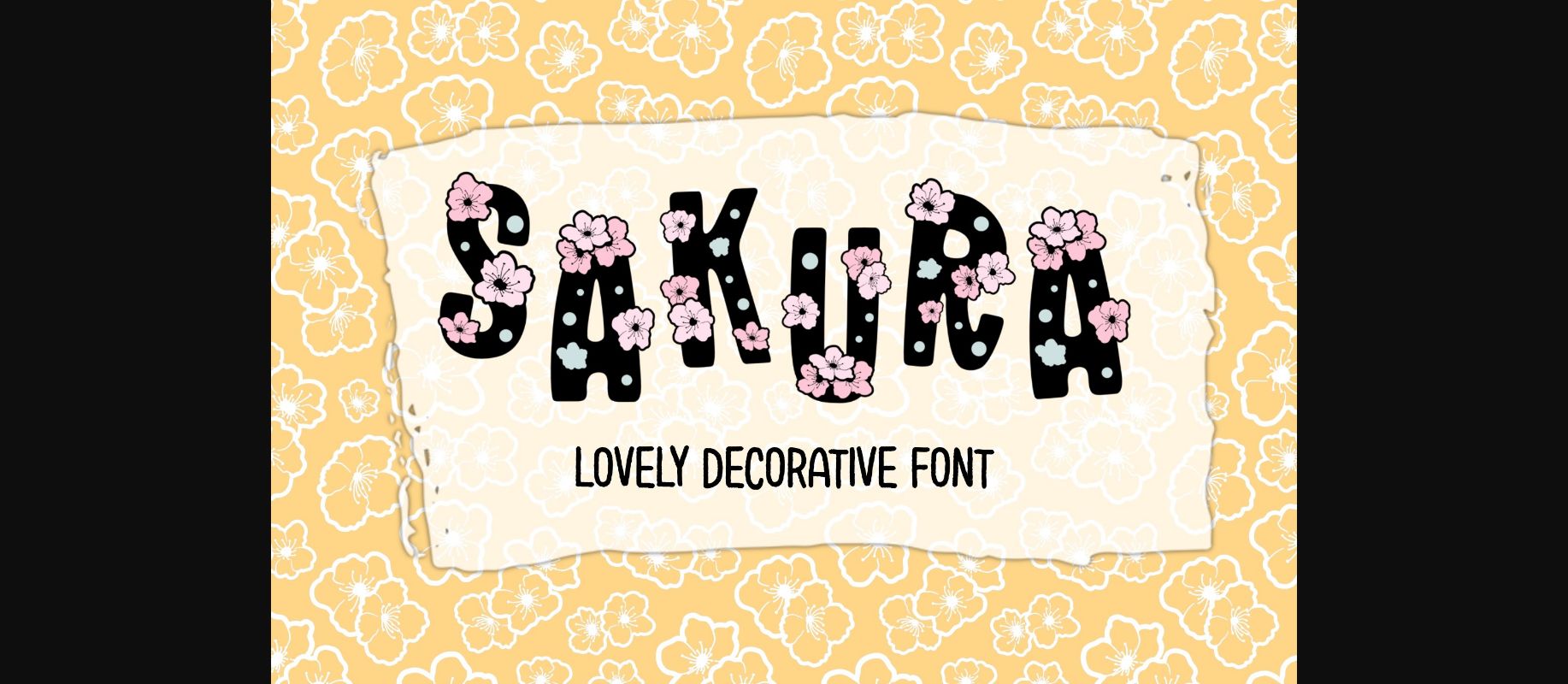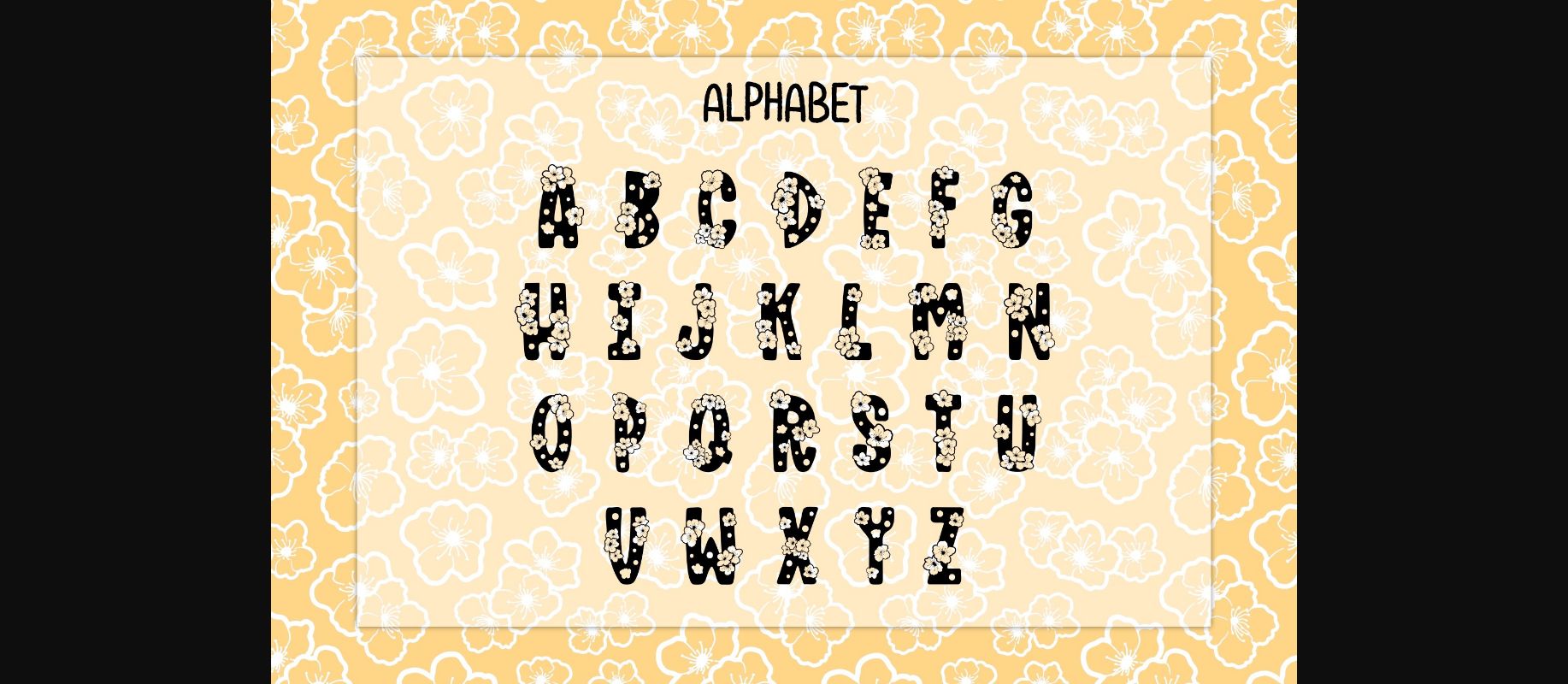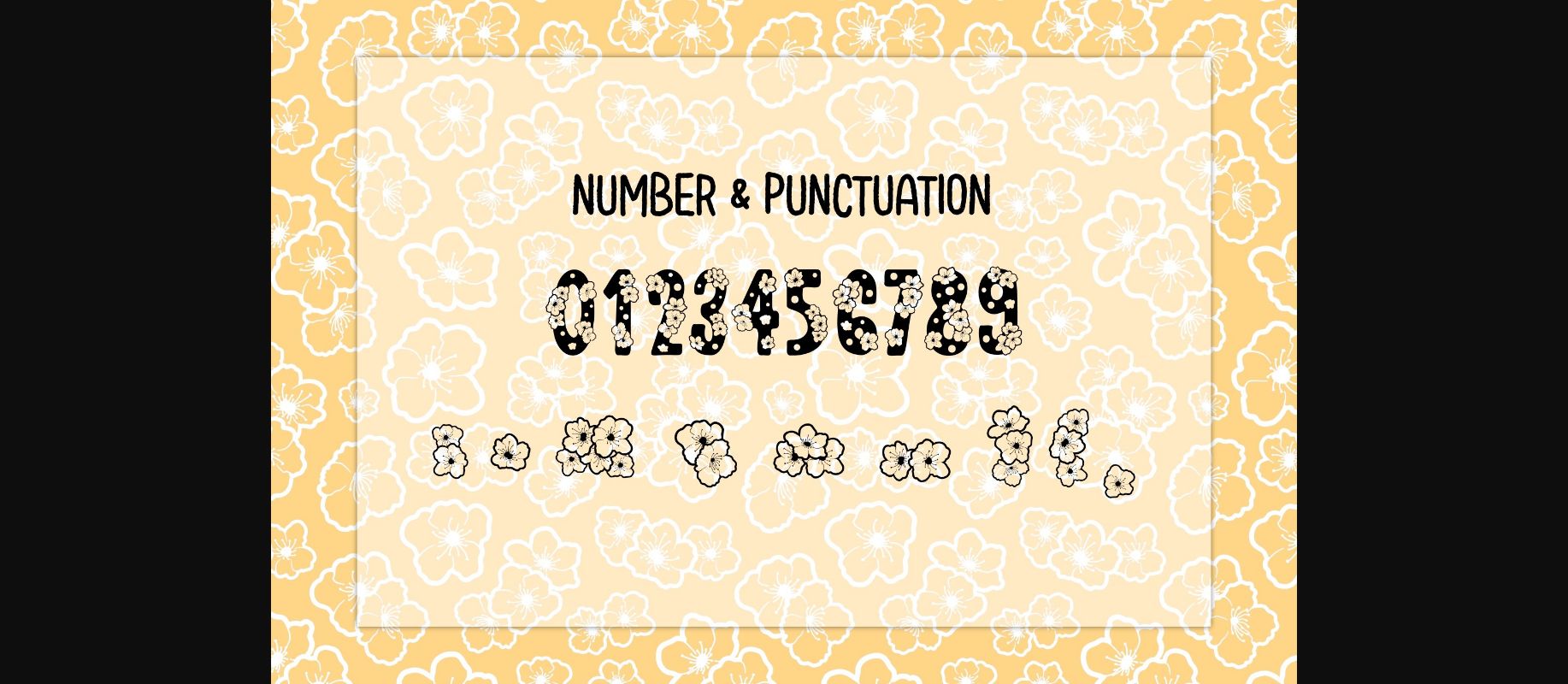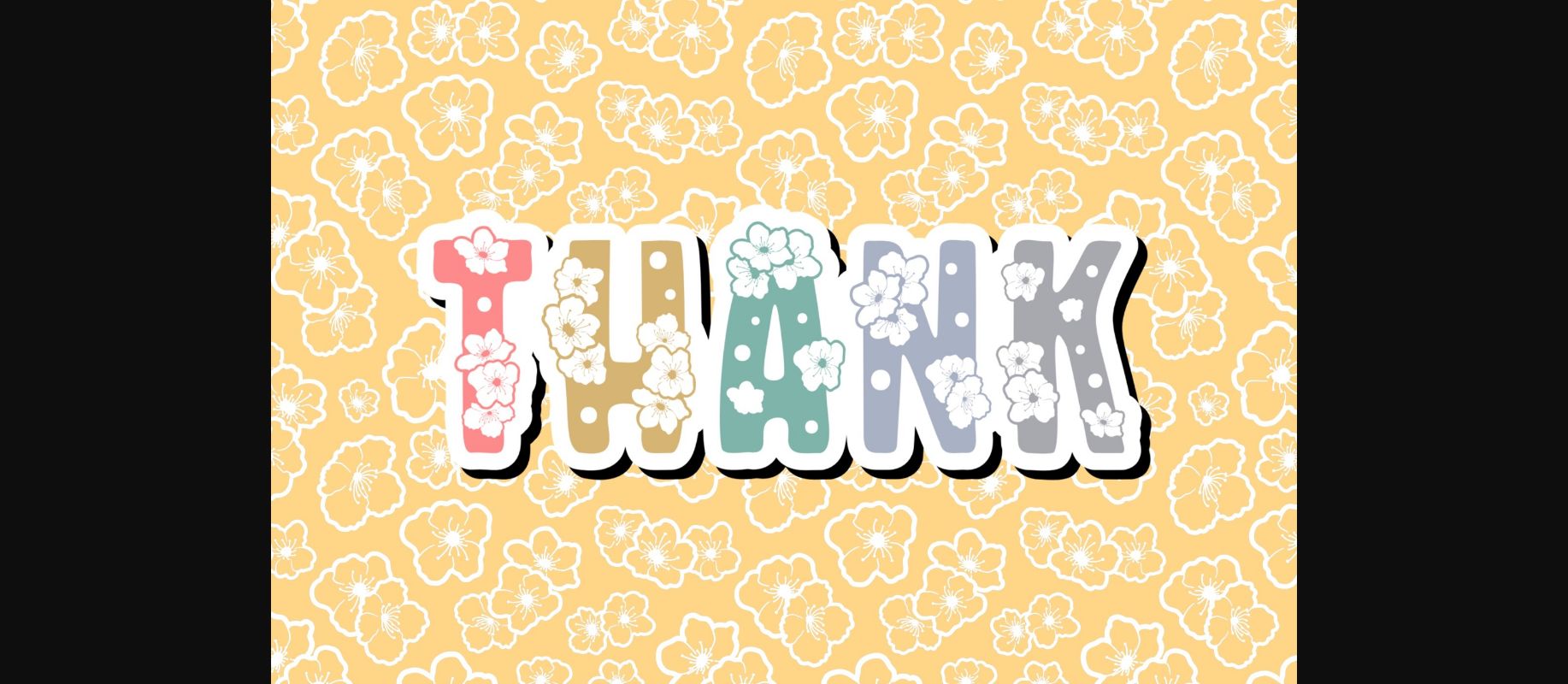
HomeDecorative FontsSakura Font Decorative Fonts Sakura Font FacebookXPinterestWhatsApp 1 of 7 ... Sakura Font Poster 2... Sakura Font Poster 3... Sakura Font Poster 4... Sakura Font Poster 5... Sakura Font Poster 6... Sakura Font Poster 7... About Sakura Font Sakura is a lovely decorative font. This font is the perfect fit for all of your logos, branding, social media, crafty DIY projects, and much more! DOWNLOAD NOW People also explored Vomamov Font Pillish Duo Font Redbock Font Sweet Holiday Font Gippsland Font Nuerthon Medium Font Xeimoniatiki Liakada Font Duo Font Kaldera Font Doodle Gnomes Font 281 0 TagsSakuraSakura Font Previous articleShotgun FontNext articleNeville Font LEAVE A REPLY Cancel reply Comment: Please enter your comment! Name:* Please enter your name here Email:* You have entered an incorrect email address! Please enter your email address here Website: Save my name, email, and website in this browser for the next time I comment. Personal Use Free Lollipop Melody Personal Use Free Read more about this font Free Personal Use Free Read more about this font Concrete Wall Personal Use Free Read more about this font Midnight Show Personal Use Free Read more about this font BLOG Where to Buy American Fonts Online in 2024 Where to Buy American Fonts Online: The Ultimate Guide for 2024 Looking for the perfect American font to elevate your design projects? You're in the... Exploring Font Trends Free vs Paid Fonts: Why Investing in Premium Fonts Is Worth It Using Fonts in Digital Marketing: Tips to Strengthen Your Brand Identity